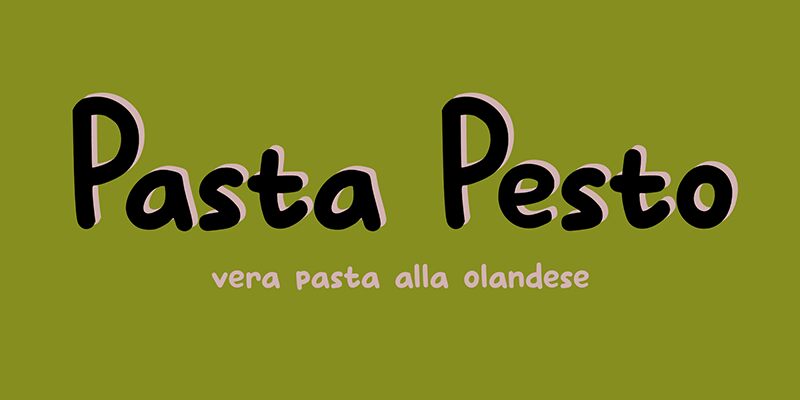
Pasta Pesto font by David Kerkhoff is a free handwritten font with rounded and casual characters. Basic yet motivating, Pasta Pesto designs appear modern, approachable, friendly and fun while maintaining a creative attitude in all displayed text paragraphs.
Use this unique font for book covers, CD album designs, posters, magazines prints or both sketches and final packaging items. It is also great for commercials on billboards or television.